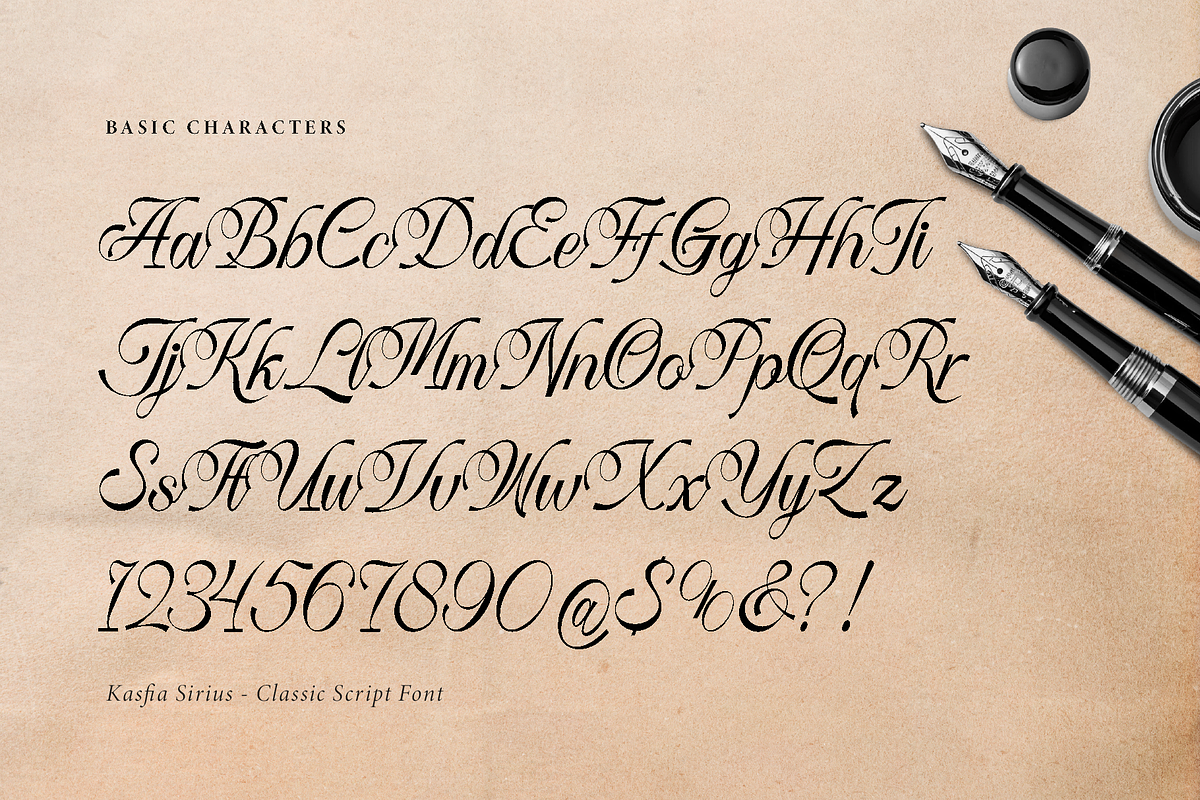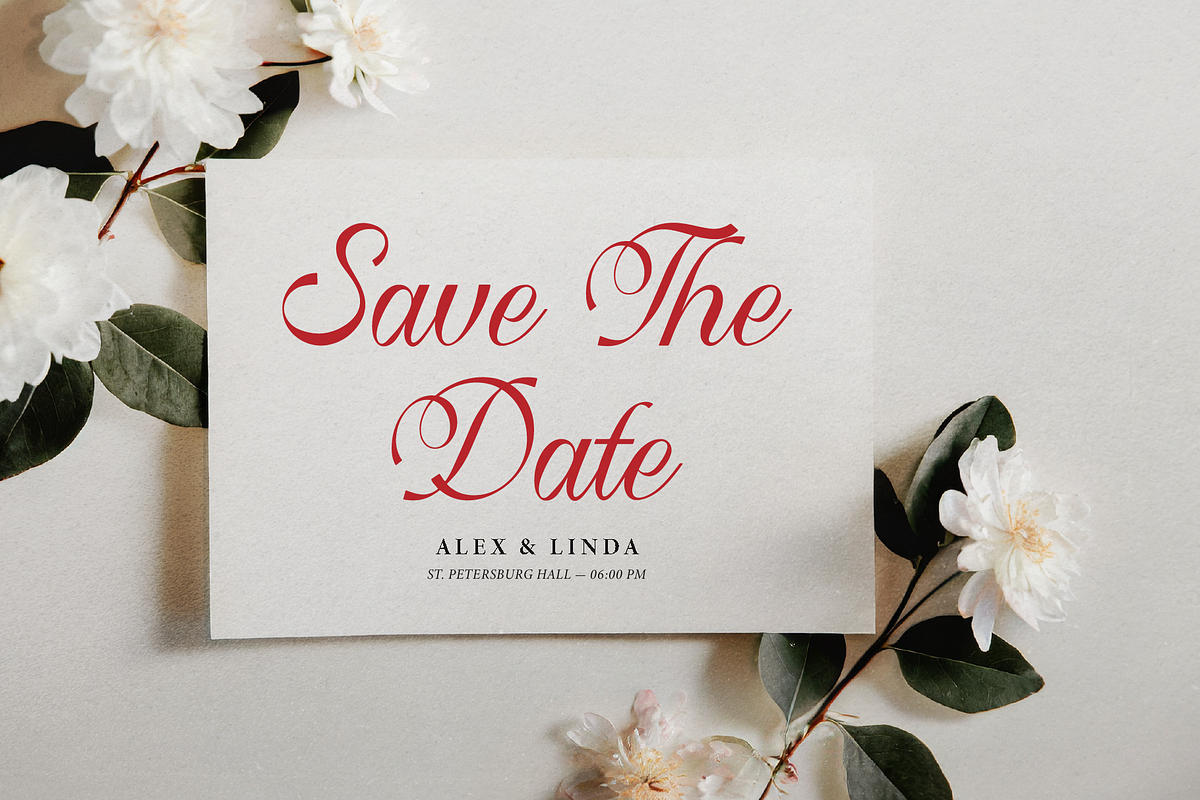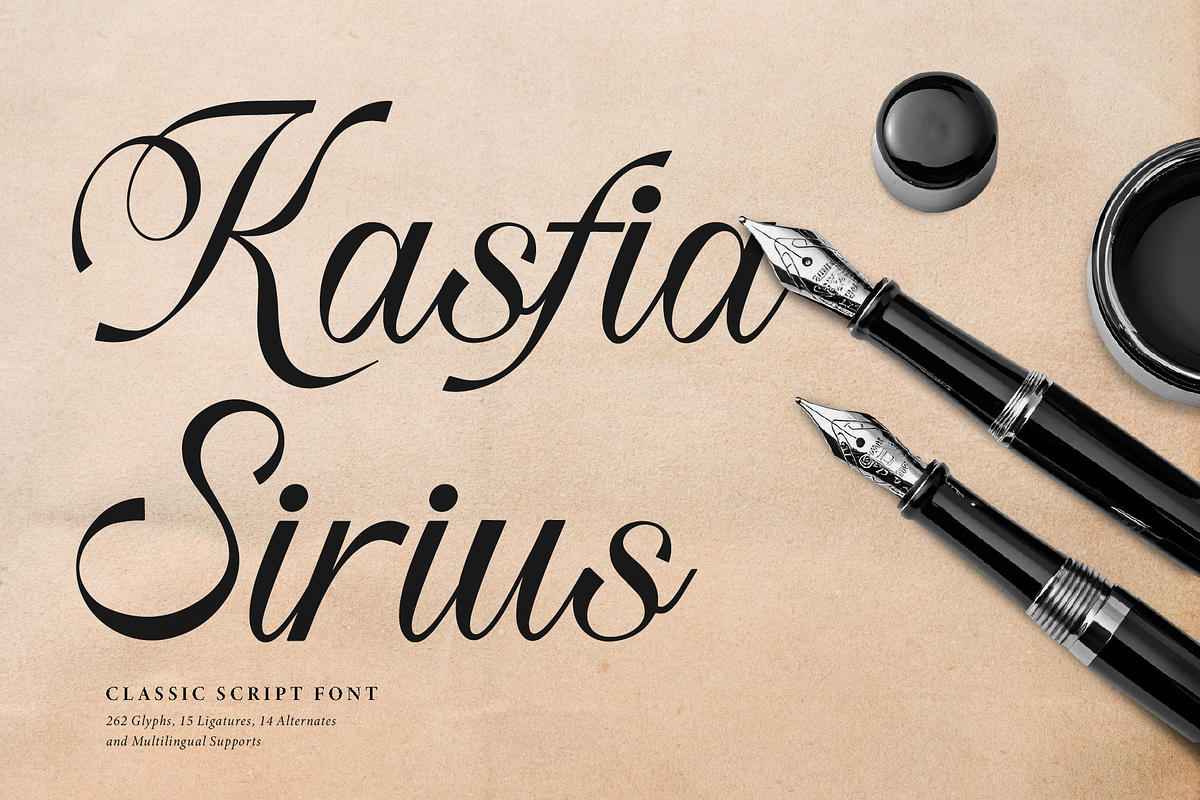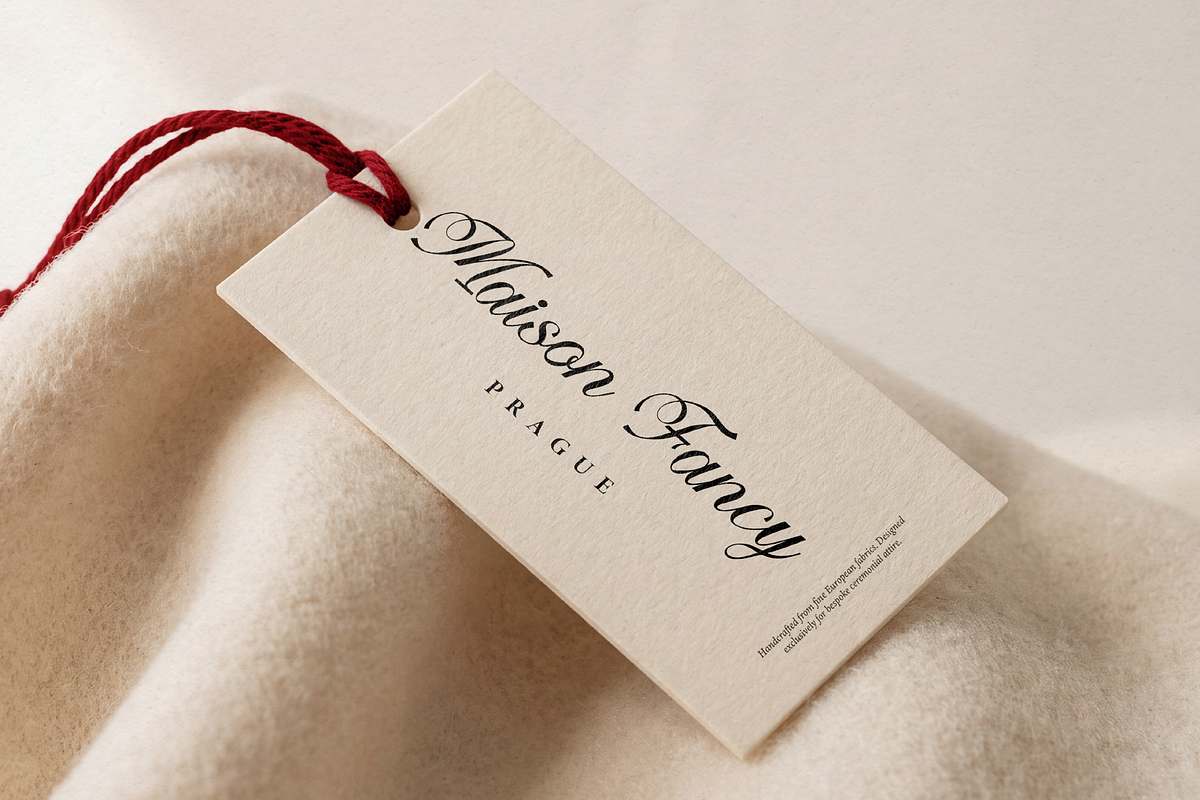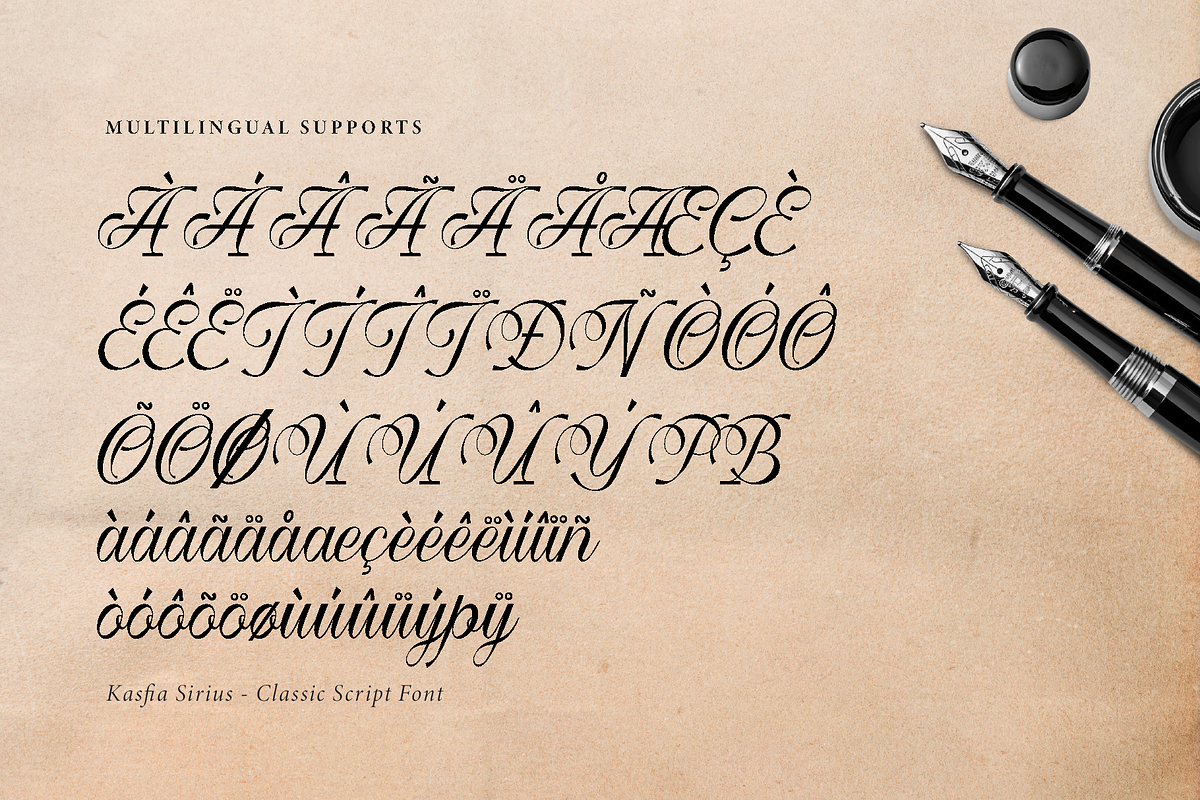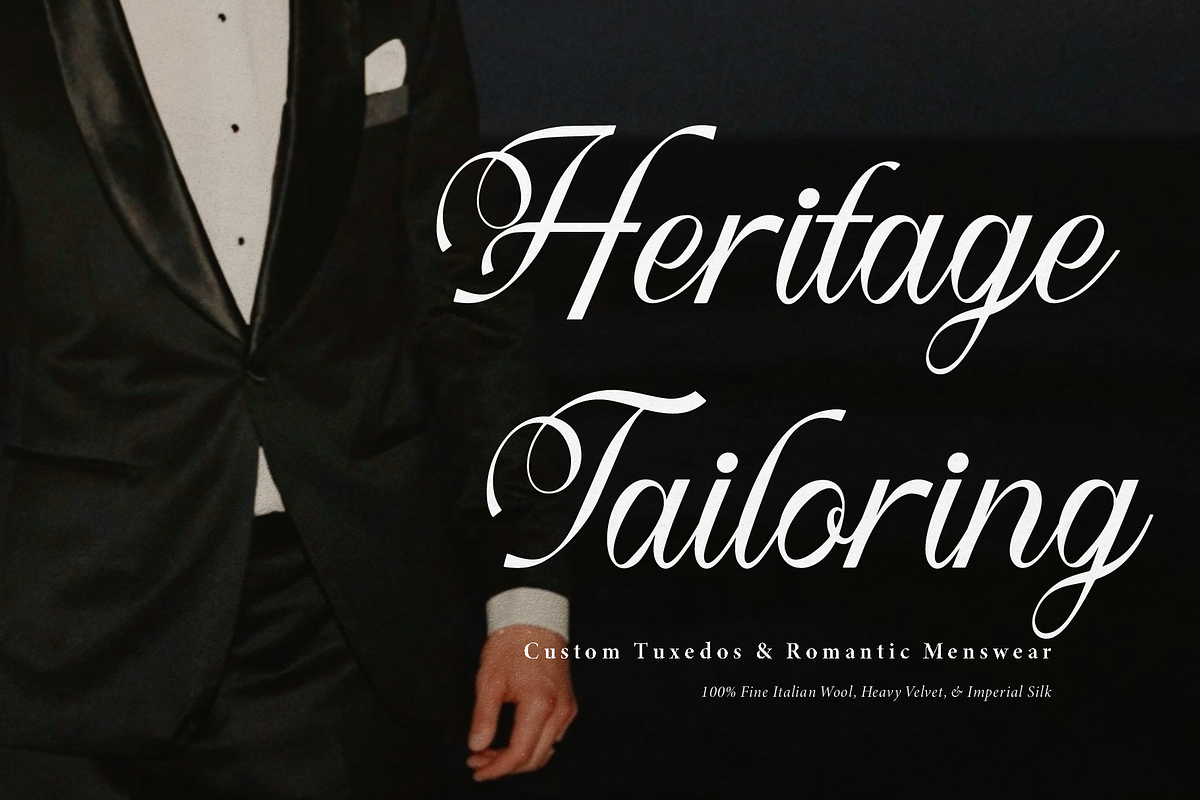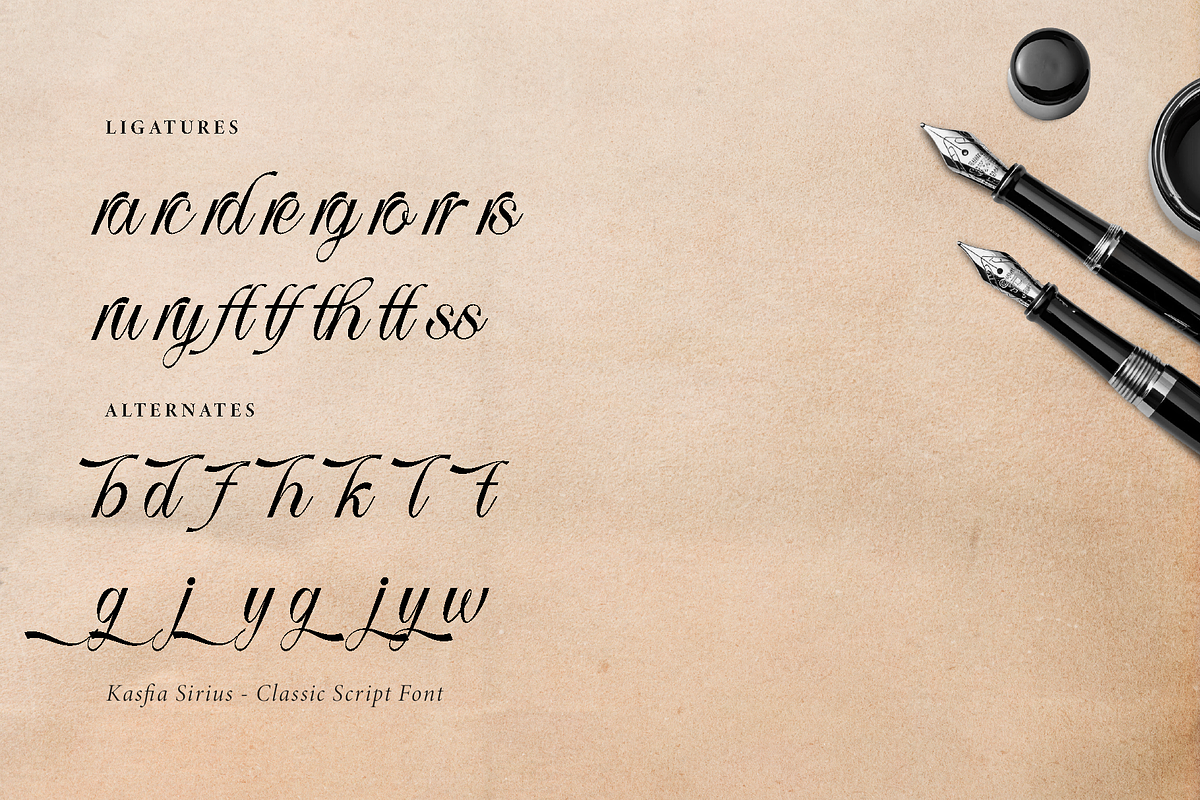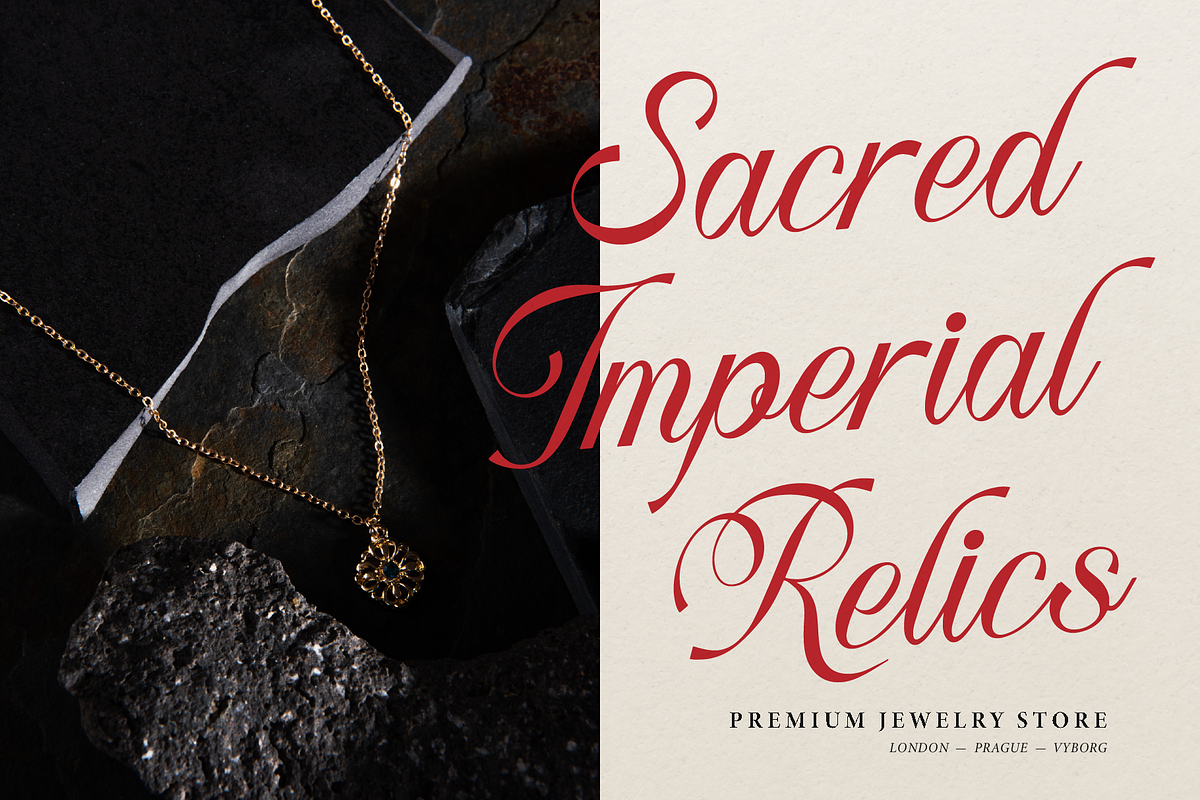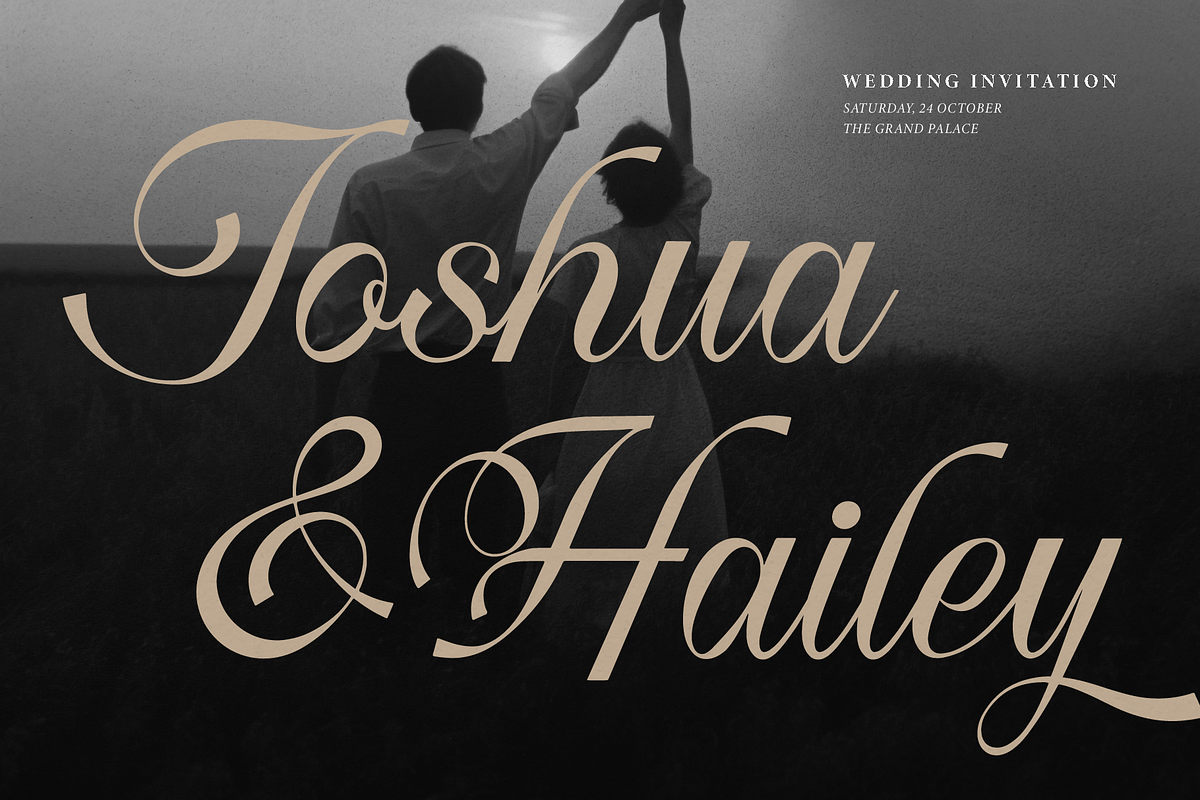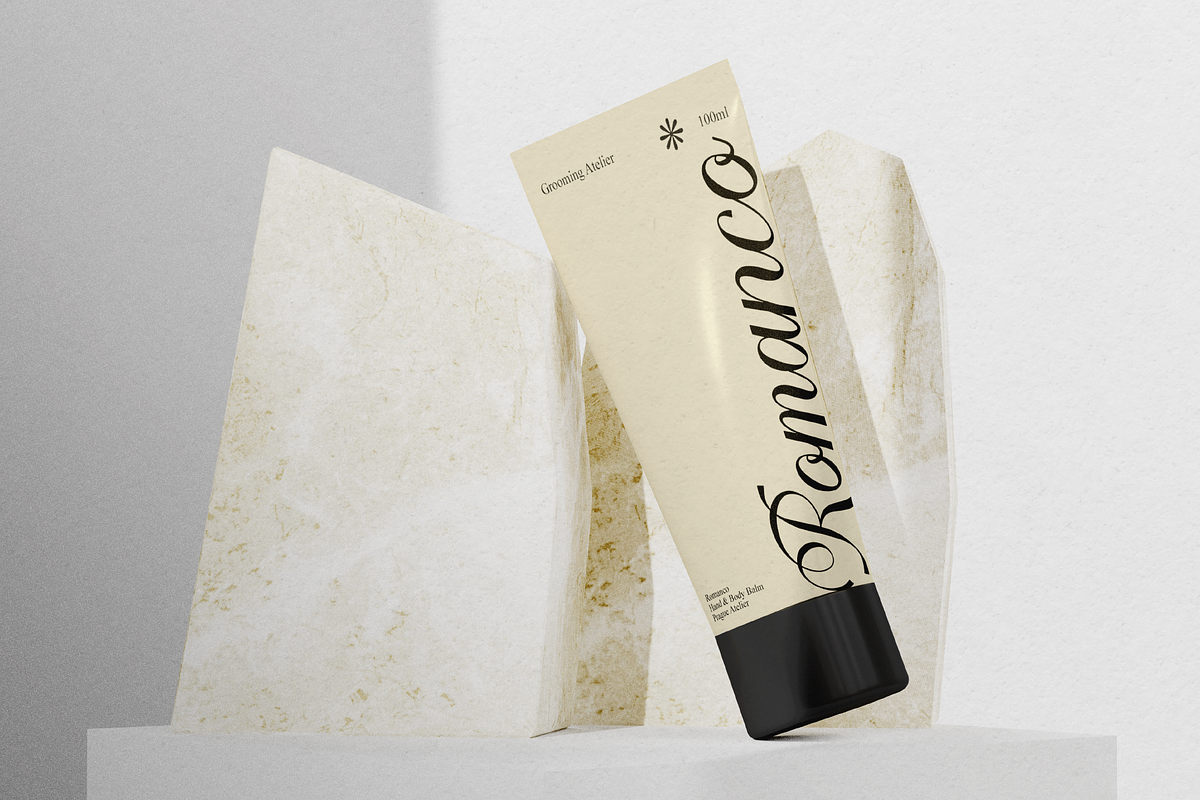
Kasfia Sirius | Classic Script
Kasfia Sirius | Classic Script, from Gracetypestudio, suitable for any projects such as: logos, branding projects, homeware designs, product packaging, mugs, quotes, posters, shopping bags, t-shirts, book covers, name card, invitation cards, greeting cards, label, photography, watermark, special events, and all your other lovely projects that need a Script Font taste.
Alternate and Ligature